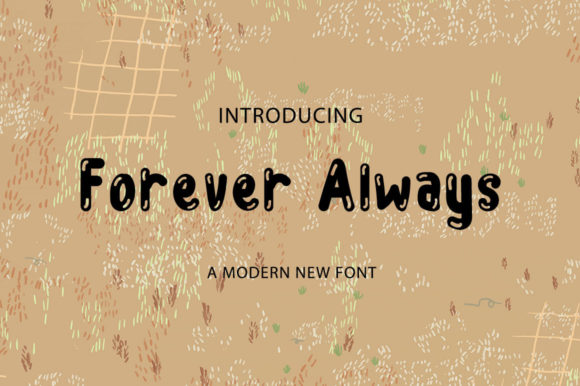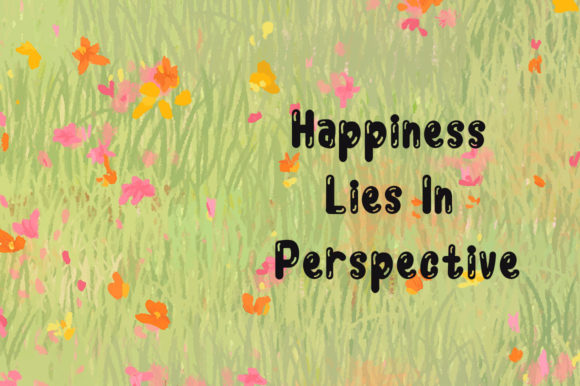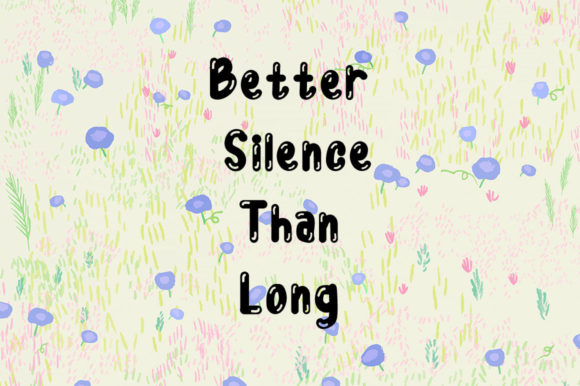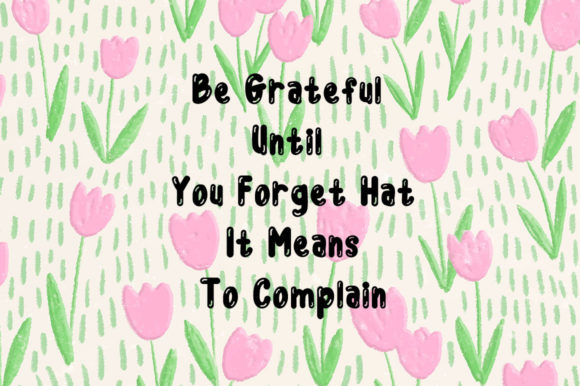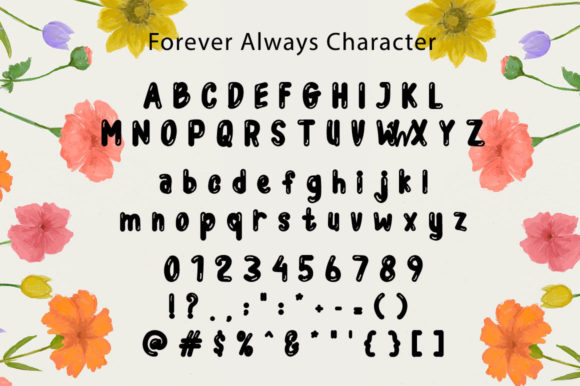
Forever Always Font
About Forever Always Font
“Forever Always”: Infuse Your Designs with Coolness, Cuteness, and Bubbly Charm
Meet “Forever Always,” the epitome of coolness, cuteness, and bubbly charm in the world of display fonts. This font isn’t just a typeface; it’s an invitation to inject a youthful and joyful vibe into your designs. Whether you’re planning a party, organizing a swimming gathering, or working on any project that craves a touch of exuberance, “Forever Always” is the go-to font to make your creations stand out.
The essence of “Forever Always” lies in its cool and trendy demeanor. It brings an effortlessly chic quality to any design, making it the perfect addition to invitations for events that demand a stylish edge. Imagine your party invitations adorned with this font—each letter radiating cool vibes, setting the tone for an unforgettable celebration. “Forever Always” turns ordinary invitations into statements of fun and flair.
In the realm of social gatherings, especially those by the pool or at the beach, “Forever Always” takes center stage. Its inherent cuteness adds a playful touch to the overall atmosphere, making it ideal for invitations to swimming gatherings. Picture the font gracing your event details, capturing the essence of joy and creating anticipation for a day filled with laughter and shared moments. “Forever Always” transforms the mundane into the extraordinary.
What makes this display font truly exceptional is its bubbly charm. The rounded edges and playful curves of each letter give your designs a lighthearted and friendly feel. This makes “Forever Always” not just a font for special occasions but also a versatile choice for any project where injecting a touch of youthfulness is essential. It’s the secret ingredient that turns the ordinary into the extraordinary, the mundane into the magical.
Whether you’re designing posters, banners, or any visual content that demands attention, “Forever Always” ensures that your message is delivered with style. Its bubbly and cute aesthetic captivates the audience, making it perfect for a wide array of applications. From social media posts to DIY projects, this font transforms each design into a visual masterpiece.
In conclusion, “Forever Always” isn’t just a font; it’s a design tool that unlocks the door to a world of coolness, cuteness, and bubbly charm. Embrace its unique personality, and let it breathe life into your creations. Add “Forever Always” to your design arsenal, and watch as it elevates your projects, turning them into vibrant expressions of youth and joy.